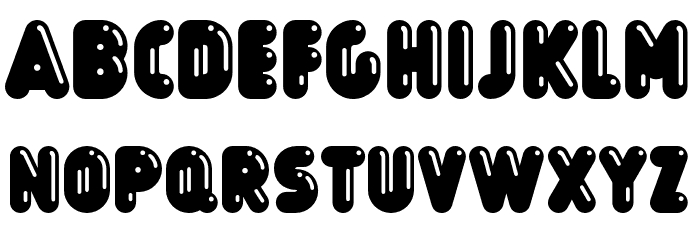
Boule Reduced Brillant Font
This font features a bold and playful design with a unique bubbly appearance. Each character is crafted with rounded edges and a consistent thickness, giving it a friendly and approachable look. The letters are adorned with small circular cutouts, adding a whimsical touch to the overall style. This design choice makes the font stand out, making it ideal for eye-catching displays. The uniformity in stroke width ensures readability while maintaining its decorative appeal.
A bold, playful font with rounded edges and whimsical cutouts.
- Font: Boule Reduced Brillant
- Proposed Projects: Perfect for children's books, playful branding, party invitations, and creative posters.
- Overall Style: Playful, Whimsical